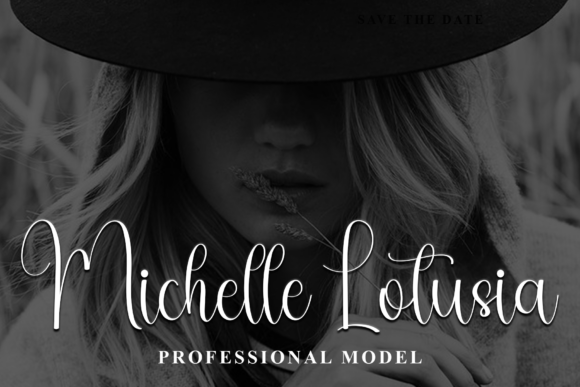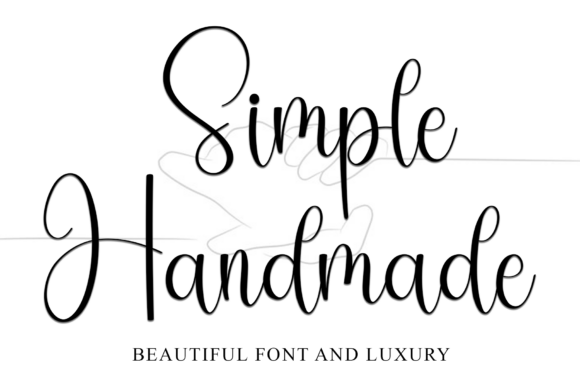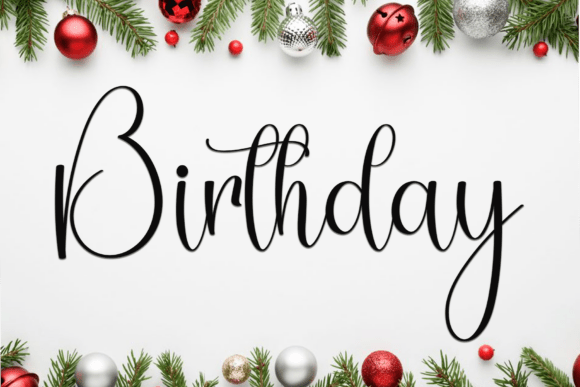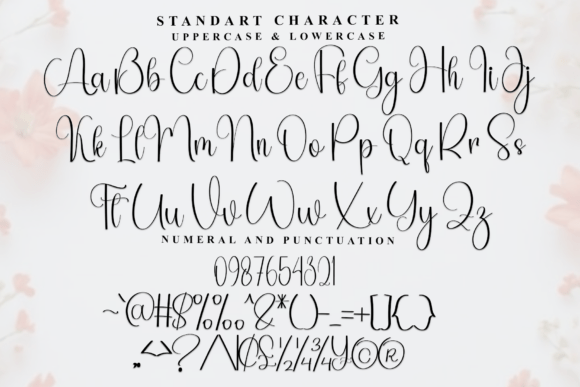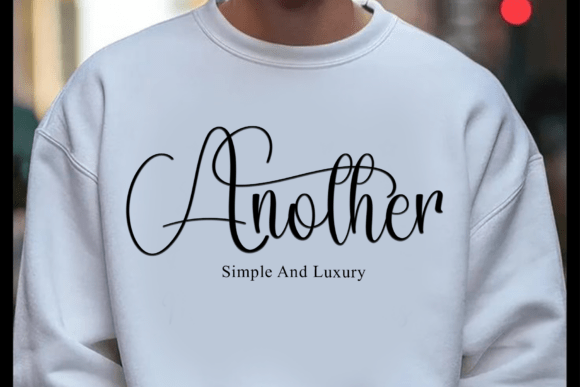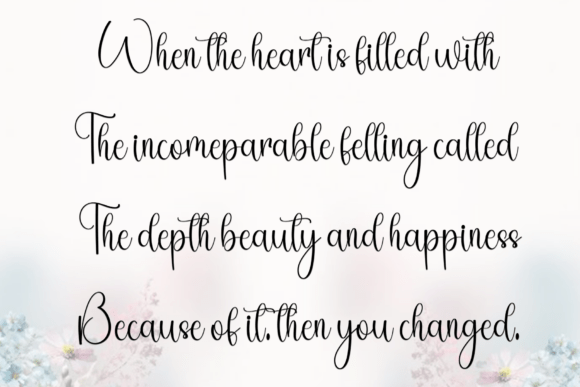
Introduction to Magnolia Samantha Font
As you sit down to plan your holiday designs, the right font can make all the difference. Imagine the perfect combination of festive cheer and elegant sophistication – that’s what the Magnolia Samantha Font brings to your creative project. Whether you’re crafting greeting cards, gift tags, or a holiday-themed website, this font is the perfect addition to set the tone for a magical winter wonderland.
With its whimsical flair and decorative elements, the Magnolia Samantha Font is a high-quality design resource that will elevate your holiday designs to the next level. Its PUA-encoded glyphs and ligatures make it easy to access and use, even for designers who are new to this font. A transparent background and high-quality design make it perfect for any project, and the best part? It’s available for free download, making it a valuable resource for designers of all levels.
Key Features of Magnolia Samantha Font
- Designed to be highly legible, with clear and crisp typography that enhances the overall visual appeal of any project.
- Perfect for use in branding, signage, and other design elements where a touch of elegance and sophistication is desired.
Honest Review: Magnolia Samantha Font
I recently had the chance to work with the Magnolia Samantha Font, and I must say it’s been a delightful experience. This font is a fantastic addition to any design resource library, and its free download makes it an even more attractive option.
What works well: ✨ The high quality of the font is immediately noticeable, with clean lines and a beautiful, elegant feel that’s perfect for a wide range of creative projects. I particularly appreciate the fact that it comes with a transparent background, making it easy to work with and customize.
However, there are a few limitations to keep in mind: ⚠️ The font family is relatively small, and it may not be suitable for projects that require a large number of font styles.
Overall, I’m thoroughly impressed with the Magnolia Samantha Font. Its high quality, elegant design makes it a great choice for any creative project, and its free download makes it an excellent value. I highly recommend giving it a try and seeing how it can elevate your next design project.
The Magnolia Samantha Font is ideal for a variety of design projects, including wedding invitations, branding materials, and social media graphics. Its elegant and sophisticated design makes it perfect for creative projects that require a high level of professionalism.